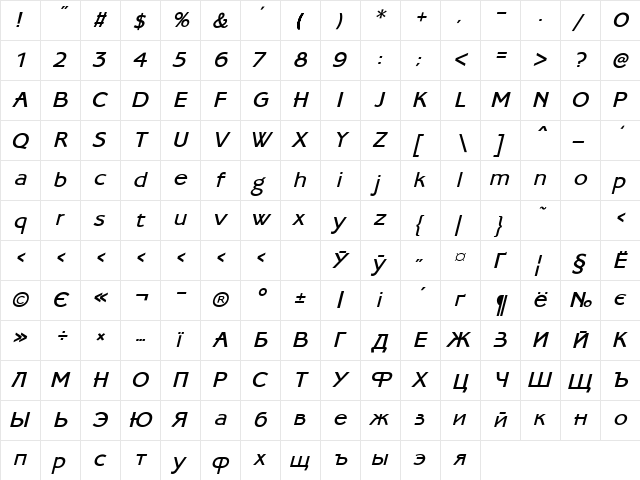
UkrainianAmbassadoreType Italic
Design Context for UkrainianAmbassadoreType Typeface
UkrainianAmbassadoreType takes a measured approach to typography — its balanced proportions and neutral character make it a reliable workhorse for both digital and print work. Its italic angle brings a sense of urgency and motion to the letterforms.
Pro Tip: Try UkrainianAmbassadoreType for annotation and caption copy alongside an upright companion — the contrast in angle creates a dynamic but ordered typographic system.